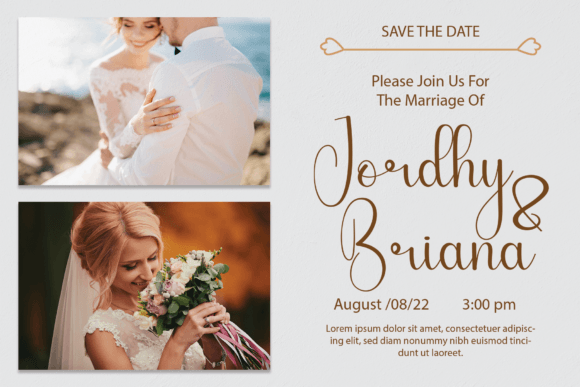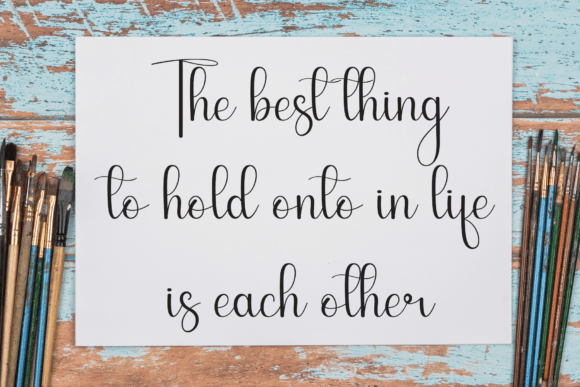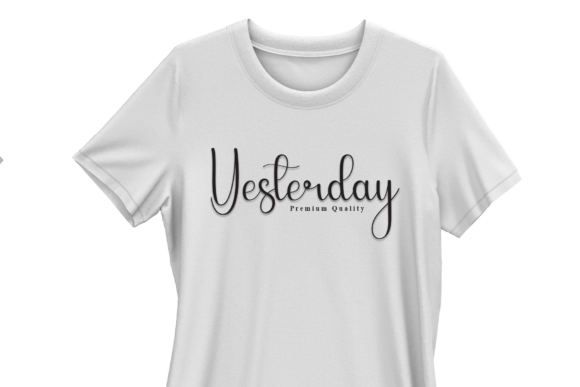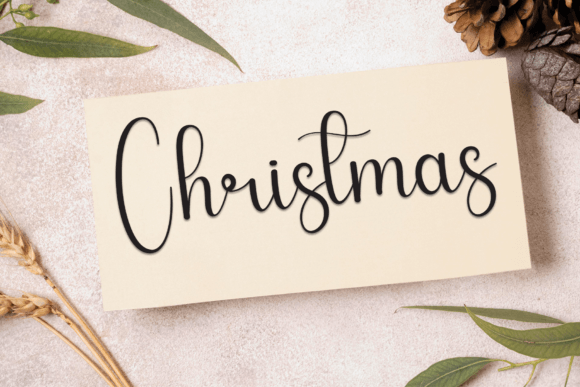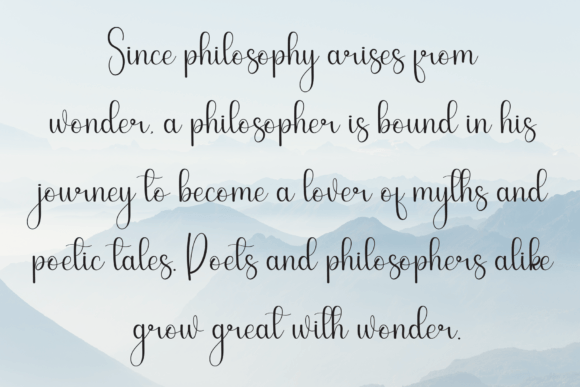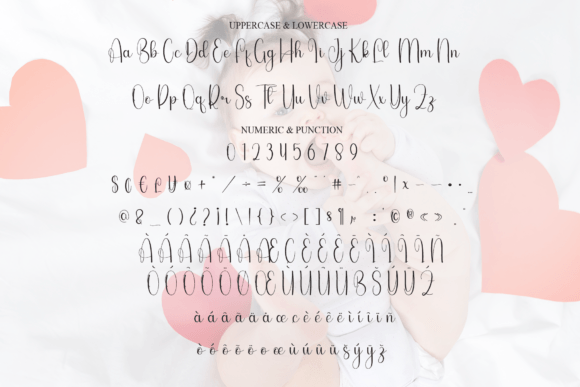
Unlocking the Magic of Babylove Font
Have you ever stumbled upon a font that instantly sparks creativity and puts a smile on your face? For designers, this is a moment of pure joy, and it’s exactly what the Babylove Font offers. This delightful hand-scripted display font is the perfect blend of playful charm and elegant sophistication, making it an ideal choice for any design project that needs a touch of warmth and personality.
With its sweet and friendly character, Babylove Font is a valuable asset for designers who want to add a personal touch to their work. Whether you’re creating enchanting wedding invitations, heartfelt cards, or any other design project, this font is sure to bring a playful spark to your creations.
Babylove Font Key Features
- Font Family: Babylove Font is a custom-designed script font, suitable for various applications, including baby-related products, feminine designs, and more.
- Unique Characteristics: Babylove Font features a unique, hand-drawn design with a mix of cursive and script elements, giving it a personal and emotive feel.
- Character Count: The font includes a wide range of characters, including uppercase and lowercase letters, numbers, punctuation marks, and special characters, making it suitable for various languages and applications.
Designer Review: Babylove Font
Overall, I think the Babylove Font is a sweet and endearing font, perfect for nursery decor, children’s books, or any design that needs a touch of warmth and innocence. ✨
What I love about this font is its playful and whimsical feel. It’s got a lot of character and personality, making it perfect for designs that need to convey a sense of fun and playfulness. The font is also highly legible, even at smaller sizes, which is a must for any design. ✨
However, I do have a few reservations about this font. Here are some limitations I’ve noticed:
- ⚠️ The font may be too sweet for some designs, and may not be suitable for more serious or professional projects.
- ⚠️ The font is not suitable for headings or titles, as it may be too small or faint at larger sizes.
Overall, I think the Babylove Font is a great choice for designers who want to add a touch of whimsy and playfulness to their designs. While it may have some limitations, I think the benefits of using this font far outweigh the drawbacks. With a little creativity and caution, I think designers can get the most out of this lovely font.
The Babylove Font is ideal for creating whimsical and playful designs, such as children’s book covers, nursery decorations, and baby-related products.
Use the font in bold or italic styles to add emphasis and create a sense of movement.
Combine the font with illustrations or graphics to create a visually appealing design.